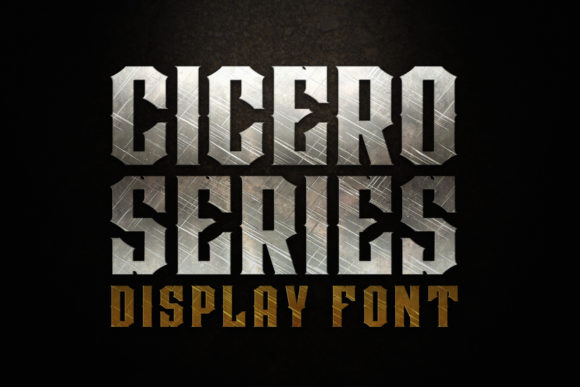
**Cicero: The Bold and Striking Display Font for Unforgettable Visuals**
Immerse yourself in the world of captivating typography with Cicero, a striking display font that commands attention with its bold and thick lettering. Crafted by the acclaimed Alphabet Agency, Cicero is a masterpiece designed to elevate your designs to new heights.
**Unleash the Power of Boldness**
Cicero embodies the essence of boldness, making it the perfect choice for headlines, posters, branding materials, and any project that demands a powerful visual impact. Its thick strokes and striking presence ensure that your message will resonate with your audience, leaving a lasting impression.
**Versatile Expression for Every Occasion**
Cicero's versatility knows no bounds. Whether you're crafting sleek logos, eye-catching social media posts, or impactful marketing materials, Cicero effortlessly adapts to your creative vision. Its unique character adds a touch of sophistication and style to any project.
**Elevate Your Designs to New Heights**
With Cicero at your disposal, you unlock endless possibilities to elevate your designs. Its bold presence transforms ordinary text into captivating statements, making it an invaluable asset for designers seeking to create truly memorable visuals.
**The Perfect Addition to Your Font Library**
Add Cicero to your arsenal of fonts and watch your creations come to life. Its versatility and captivating nature make it an indispensable tool for expressing your unique style. From personal projects to professional endeavors, Cicero empowers you to make a bold statement with every design.